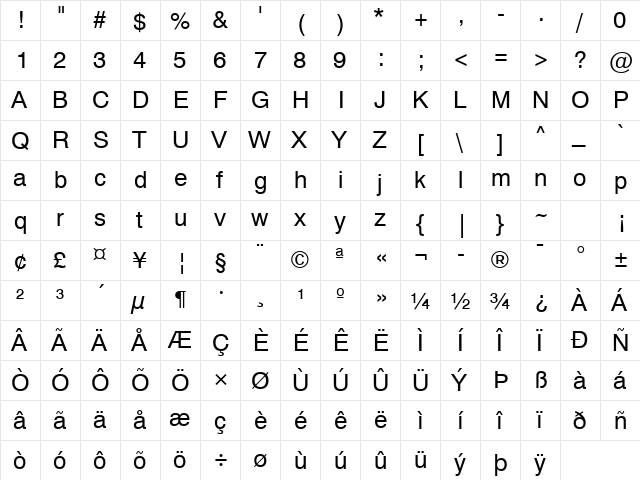
Swiss 721 SWA Roman
Design Context for Swiss 721 SWA Typeface
Swiss 721 SWA is a composed and adaptable typeface that performs quietly and consistently across a wide range of design contexts.